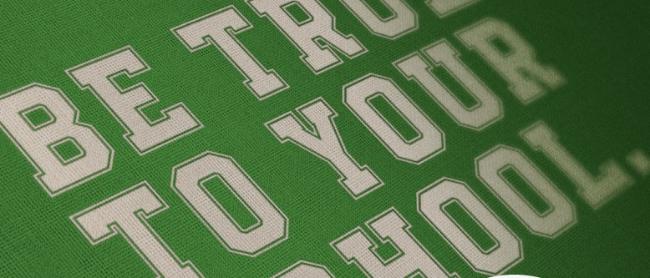
Sports typography has evolved into a specialized design element that helps teams, brands, and events establish their unique identity. Sports fonts go beyond mere text—they embody the energy, tradition, and character of the sporting world they represent. Let’s explore how these specialized fonts shape the visual language of sports.
Sports fonts serve multiple purposes in design. They need to be instantly recognizable, often from a distance or in motion. They must convey the dynamic, powerful nature of athletics while maintaining legibility across various applications—from jerseys and merchandise to stadium signage and broadcast graphics.
The most effective sports fonts communicate specific attributes associated with their teams or events: strength, speed, tradition, regional identity, or innovation.
Common Characteristics of Sports Fonts
Sports typography like sports logos typically features certain design elements:
• Bold, heavy weights that command attention
• Strong angular or curved elements suggesting motion
• Distinctive serifs or terminals that create memorability
• Customized letterforms that distinguish team identity
• Condensed structures for efficient space usage on jerseys
• Strategic use of negative space and beveling for dimension
Buccane Sport
This bold, athletic-inspired display font delivers a dynamic, energetic feel. Sharp, angular letterforms with a slightly aggressive, sporty edge make it perfect for logos, headlines, or sports-related designs. Its modern, competitive vibe makes it an excellent choice for fitness brands, esports, or any project needing a strong, action-oriented typographic punch.
Aougtron
This modern, sleek font is designed to convey speed, motion, and dynamism. Sharp angles, streamlined letterforms, and a futuristic aesthetic make it ideal for automotive branding, sports logos, racing games, or any design needing an energetic, high-performance vibe. The font family includes multiple weights and stylistic alternates for enhanced versatility—perfect when you need typography that screams fast and aggressive.
Speed Themes
Speed Themes is a modern, sleek font designed to convey a sense of speed, motion, and dynamism. It often features sharp angles, streamlined letterforms, and a futuristic aesthetic, making it ideal for automotive branding, sports logos, racing games, or any design that needs an energetic, high-performance vibe. This font family may include multiple weights (light, regular, bold) and stylistic alternates to enhance versatility. If you’re looking for a typeface that screams fast and aggressive, Speed Themes could be a great choice.
Revered Through
This stylish, elegant typeface blends modern design with classic serif elements. High contrast between thick and thin strokes gives it a sophisticated, luxurious feel, making it perfect for high-end branding, editorial design, wedding invitations, and other projects requiring refinement.
Rigsport
This modern, geometric sans-serif font is known for its clean, minimalist design and versatility. Its balanced, slightly rounded aesthetic with a sporty, dynamic feel makes it suitable for headlines, branding, sports-related designs, and contemporary UI/UX projects.
Striger
This modern, bold, geometric display font is known for its sharp edges and futuristic aesthetic. It’s particularly effective in designs requiring a strong, techy, or industrial vibe—such as gaming, sci-fi themes, sports branding, or cyberpunk-inspired projects.
Varsity Team
This bold, collegiate-style typeface perfectly captures traditional American sports culture. You’ll instantly recognize its inspiration from high school and college team jerseys, banners, and letterman jackets. It’s become the go-to font for expressing school pride and athletic energy.
Jersey M54
A true classic in sports fonts, Jersey M54 works beautifully for apparel design and jersey naming. Worth noting: the uppercase and lowercase ‘S’ differ, with the lowercase version featuring a more traditional style. Look for alternate glyphs for ‘2’ and ‘5’ in the left and right curly brackets.
Sport Game
Sport Game Esport Font delivers a proper sports typeface for those who prefer simple yet cool lettering. Its modern vibe works well on hats, jerseys, tickets, and merchandise. Whether printed small or large, it maintains excellent visibility up close or from a distance. It’s equally suitable for magazine covers and books.
Campus
This classic collegiate-style typeface is commonly associated with varsity jackets, sports teams, and university branding. With its bold, blocky, all-caps lettering and slightly retro athletic vibe, Campus is the perfect choice when you need to convey a strong, traditional, competitive feel—ideal for school-related themes or anything needing team spirit.